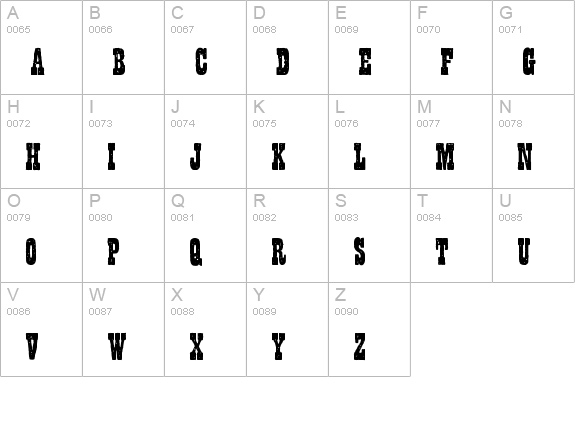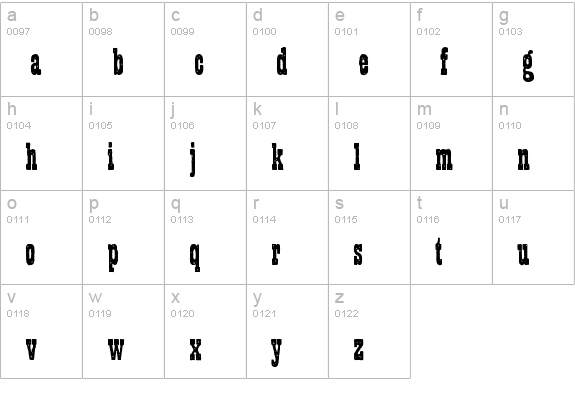
Wanted Com Font Details
Wanted Com font is a bold and eye-catching typeface that exudes a sense of adventure and mystery. With its rugged and Western-inspired design, this font is perfect for creating striking headlines, posters, and branding materials that demand attention. The sharp angles and thick strokes give it a strong and commanding presence on any design project.